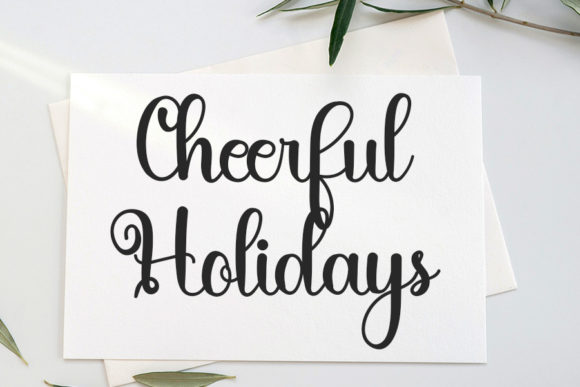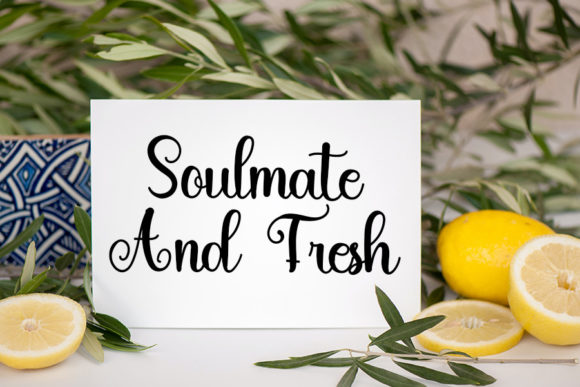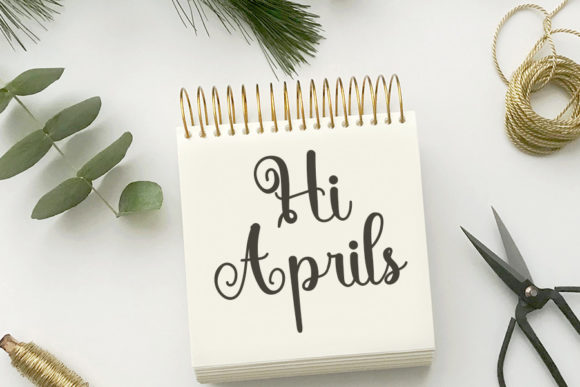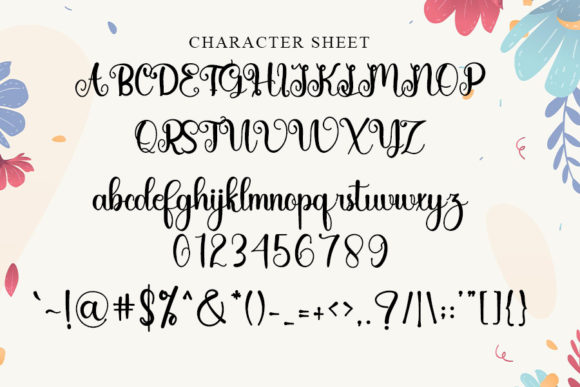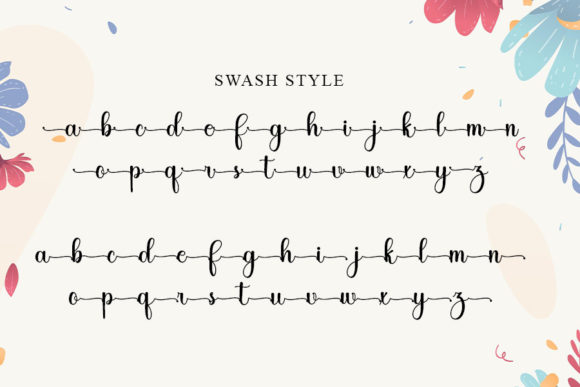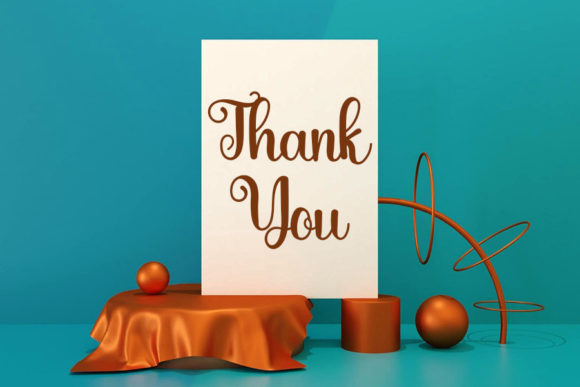
The Quest for the Perfect Font: Discovering Gabryllia
I still remember the countless hours I spent searching for the ideal font for a client’s wedding invitation project. The design brief called for something elegant, modern, and sophisticated, but my usual go-to fonts just didn’t cut it. That’s when I stumbled upon Gabryllia, a beautiful and refined script font that has since become a staple in my design toolkit.
A First Impression: What I Love About Gabryllia
Gabryllia is a true gem, with a classy, elegant, and modern look that’s perfect for a wide range of design projects, from logos and branding to invitations, stationery, and social media posts. Here are just a few things that I love about this font:
- ✨ Elegant and refined design that’s perfect for high-end clients
- 🔥 Highly versatile and adaptable to different design contexts
- 💕 Beautifully crafted to evoke a sense of luxury and sophistication
The Not-So-Perfect: A Few Quirks and Limitations
While Gabryllia is an exceptional font, it’s not without its quirks. Here are a few things to keep in mind:
- 🤔 Some users may find the font a bit too ornate or over-the-top for certain design projects
- ⚠️ As with any script font, it may not be the best choice for body text or long-form content
The Story Behind Gabryllia: Designer Inspiration
While the true story behind Gabryllia’s creation is unknown, it’s easy to imagine that the designer was inspired by the elegance and sophistication of traditional calligraphy. With its refined lines and beautiful swashes, Gabryllia is the perfect blend of classic and modern design.
| What is Gabryllia best used for? | Gabryllia is perfect for logos, branding, invitations, stationery, wedding designs, social media posts, and more! |
| Is Gabryllia a script font? | Yes, Gabryllia is a beautiful script font with a refined, elegant design. |